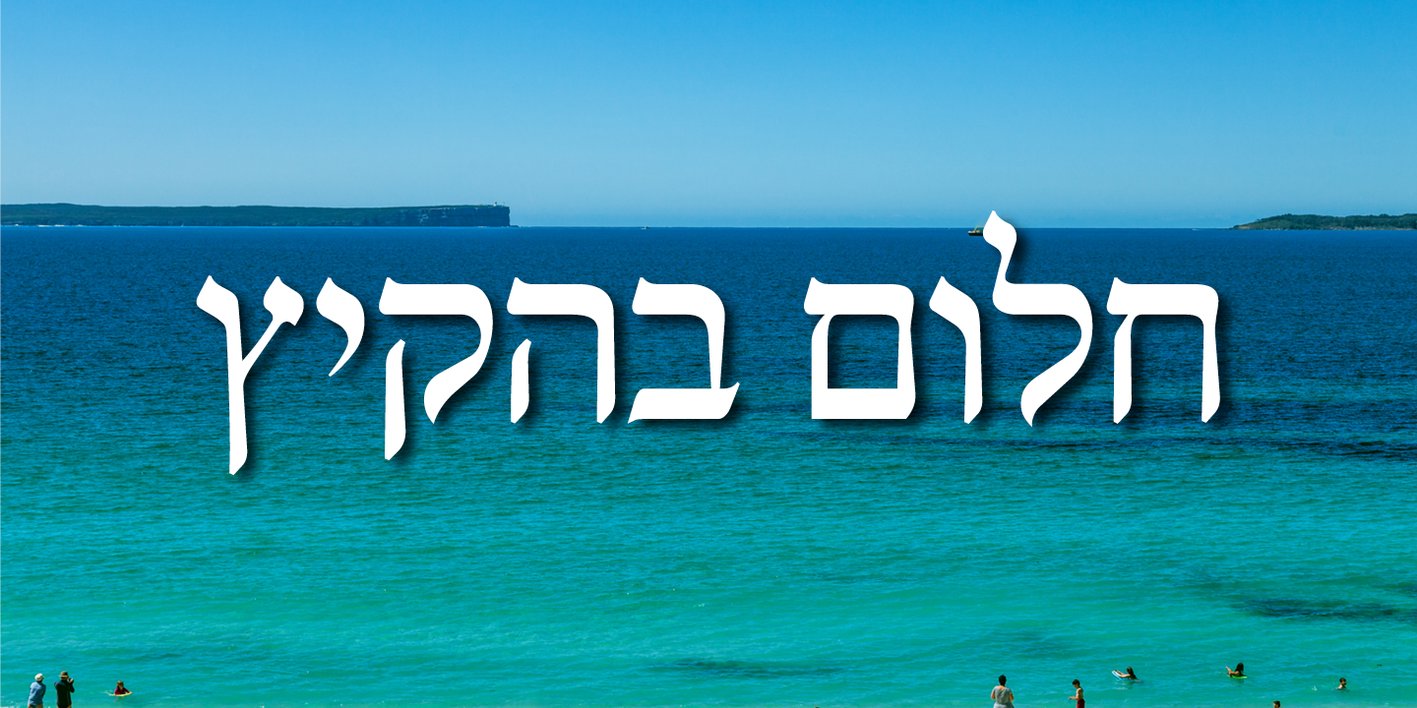
Bar Yochay MF Font is perfect for Hebrew religious texts, Jewish cultural events, synagogue communications, Torah study materials, Israeli heritage projects, Kabbalistic publications, Jewish wedding invitations, rabbinical documents, Hebrew educational resources, and spiritually meaningful marketing communications.
Bar Yochay MF Font is exciting because it honors the profound spiritual wisdom and mystical traditions of Jewish heritage with its reverently crafted letterforms that seem inscribed with sacred intention and carry the timeless teachings of Rabbi Shimon Bar Yochai, whose mystical insights illuminated the path of Kabbalah for countless generations. Its spiritually elegant character design reflects both the scholarly devotion required for Talmudic study and the mystical depth that transforms sacred text into living wisdom, making it perfect for brands honoring Jewish tradition and spiritual learning.
Bar Yochay MF Font family includes light, regular, medium, bold, and black weights, each with corresponding italic versions. The font family also features Hebrew ornaments, Jewish cultural ligatures, mystical symbols, and traditional decorative elements that enhance its sacred aesthetic and religious versatility.
This spiritually distinguished typeface represents the perfect fusion of Jewish cultural heritage and contemporary design respect. Bar Yochay MF Font Free Download allows designers to explore its sacred possibilities before making a commercial commitment. The font's ability to convey both religious reverence and cultural authenticity makes it ideal for Jewish institutions, Hebrew publishers, and cultural organizations seeking to honor Jewish traditions with genuine respect and spiritual sensitivity.
Whether you're developing synagogue identities, creating Hebrew educational materials, or designing Jewish cultural communications, Bar Yochay MF Font brings an unmistakable sense of spiritual reverence and cultural authenticity to every project. Its sacred character and Jewish heritage create powerful connections that resonate with Jewish communities and audiences appreciating authentic religious tradition and mystical wisdom.
The font's versatility excels in religious and educational environments where tradition and spiritual authenticity are paramount. Its reverent character makes it particularly effective for synagogues, Jewish schools, Hebrew publishers, and cultural institutions seeking to establish respectful relationships with Jewish communities and audiences who value authentic religious expression and sacred learning traditions.
For designers working on projects requiring genuine Jewish cultural authenticity and spiritual appeal, Bar Yochay MF Font provides an exceptional solution. Its spiritually reverent presence and comprehensive Hebrew elements offer the tools needed for creating truly respectful communications, while its mystical depth ensures your designs honor the sacred wisdom and cultural richness that defines authentic Jewish traditions and spiritual learning excellence.